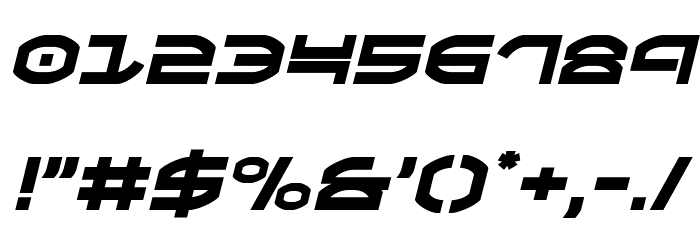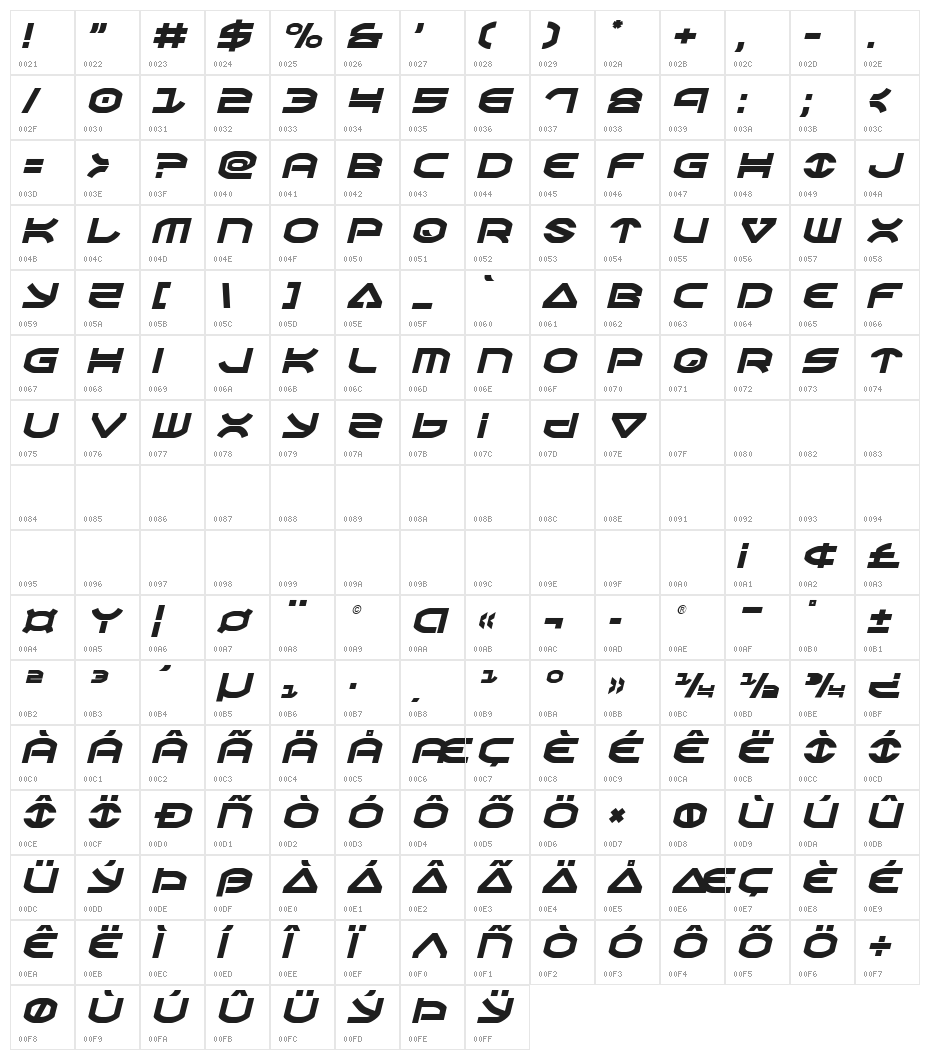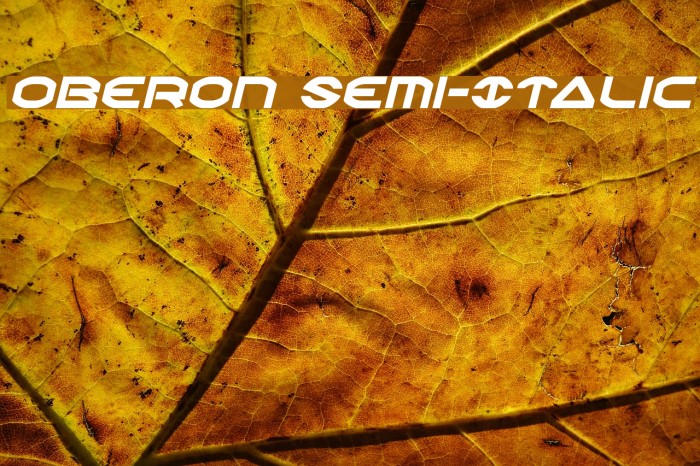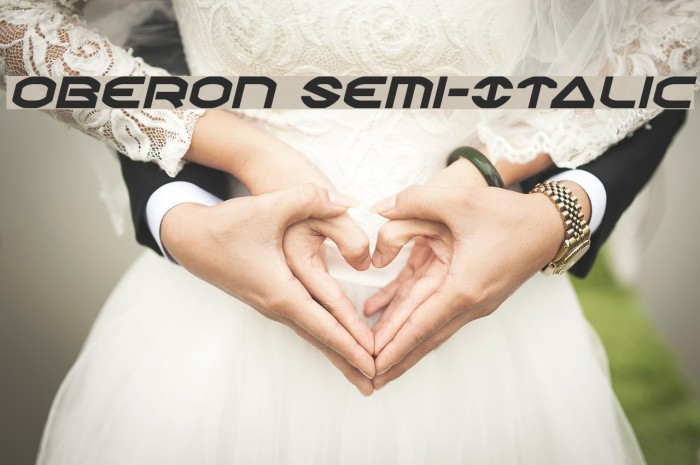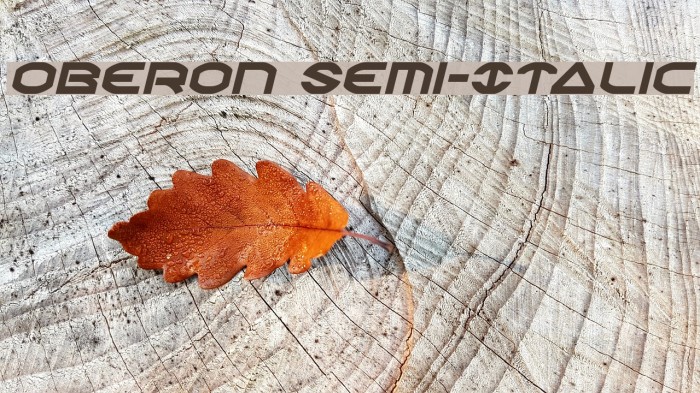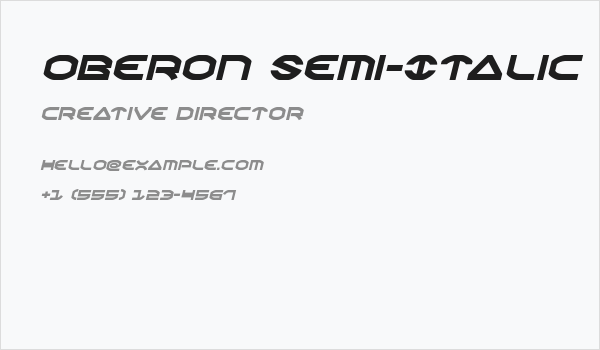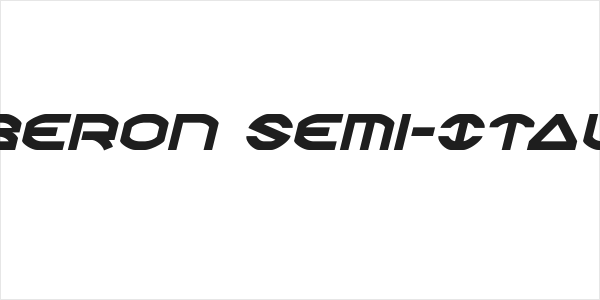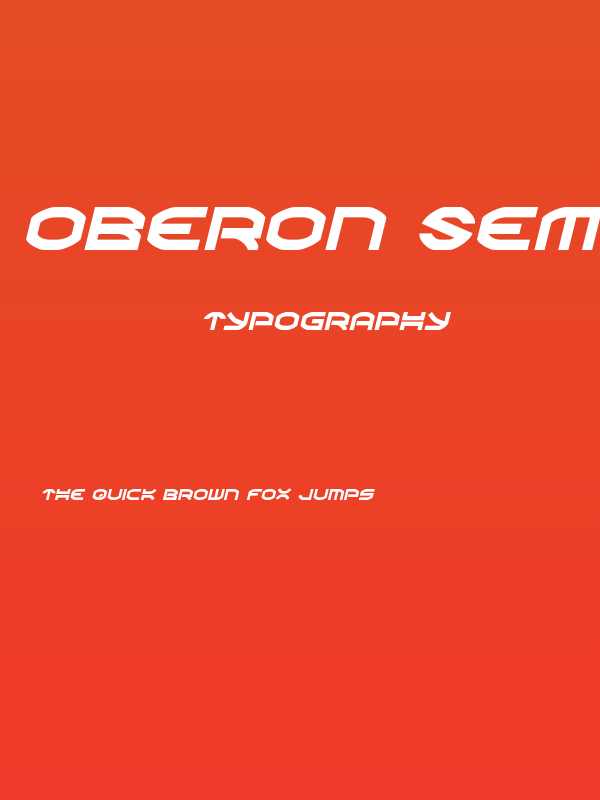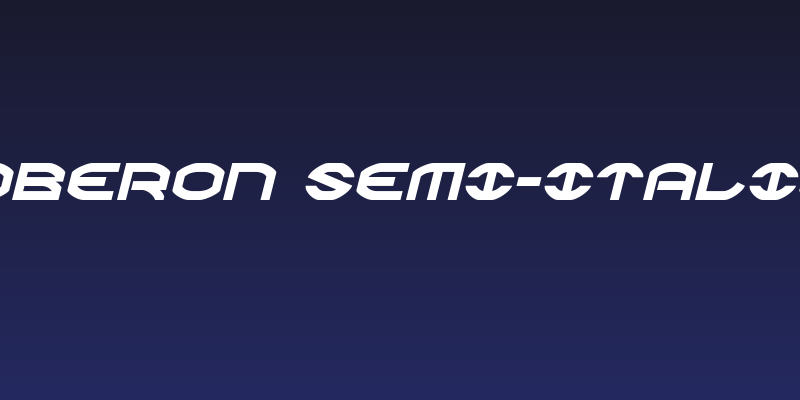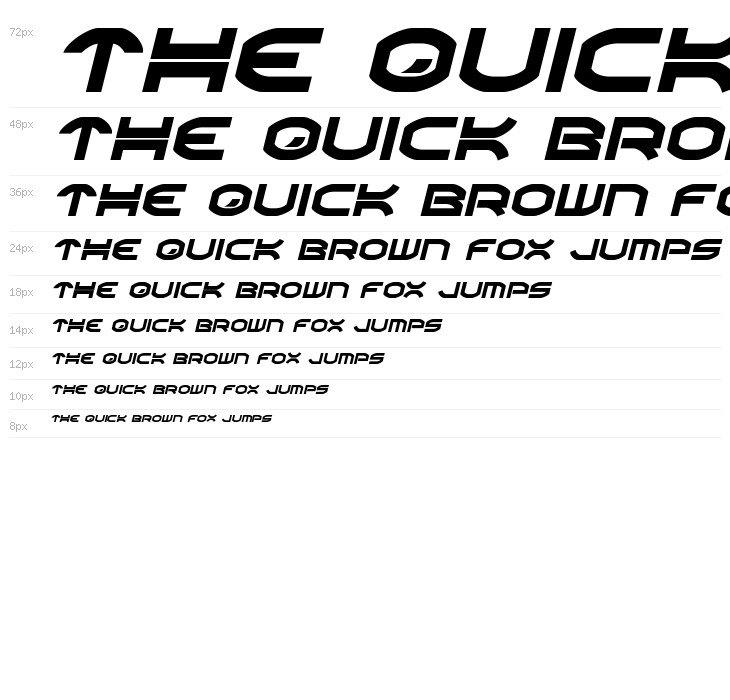
Oberon Semi-Italic Font
Oberon Semi-Italic Description
This font features a futuristic and dynamic design with a semi-italic slant, giving it a sense of motion and energy. The characters are bold and geometric, with sharp angles and a consistent stroke width that maintains a modern aesthetic. The uppercase and lowercase letters share a similar style, ensuring uniformity across text. Numbers and special characters are designed to match the overall theme, making them suitable for a variety of digital and print applications. The font's unique style makes it stand out, ideal for projects that require a bold and contemporary look.
| Proposed Projects | Ideal for technology branding, sci-fi posters, video game titles, and modern advertising. |